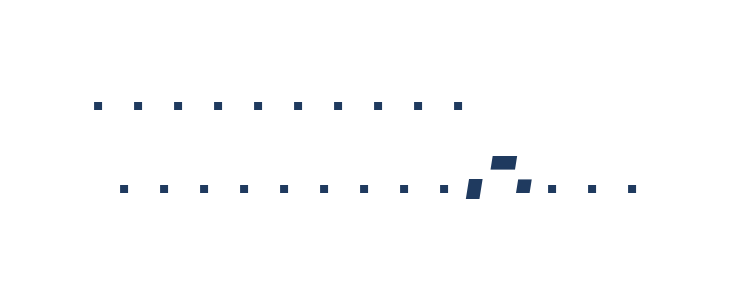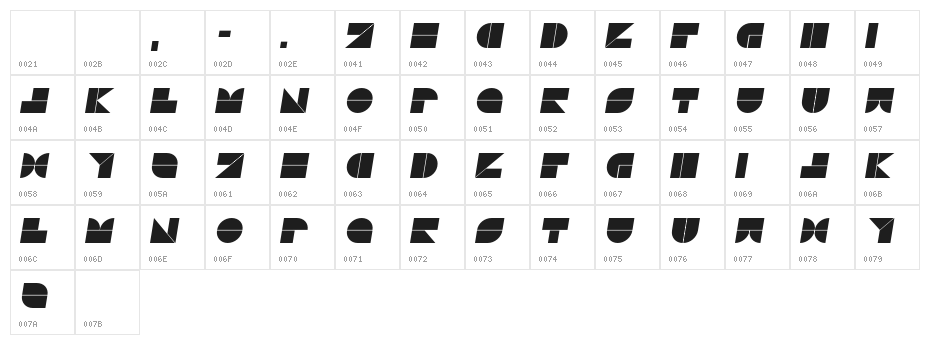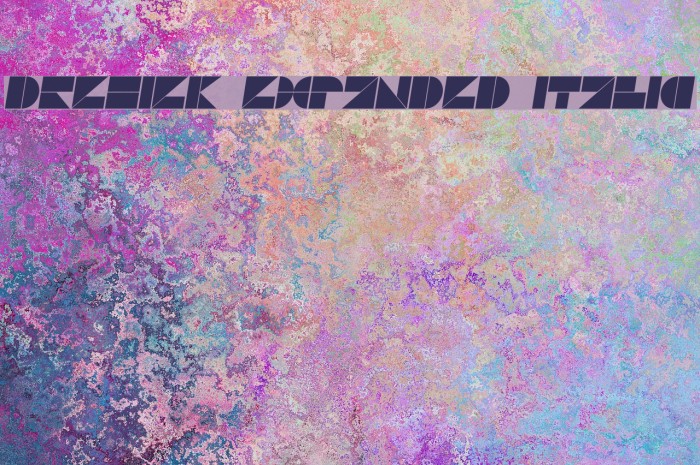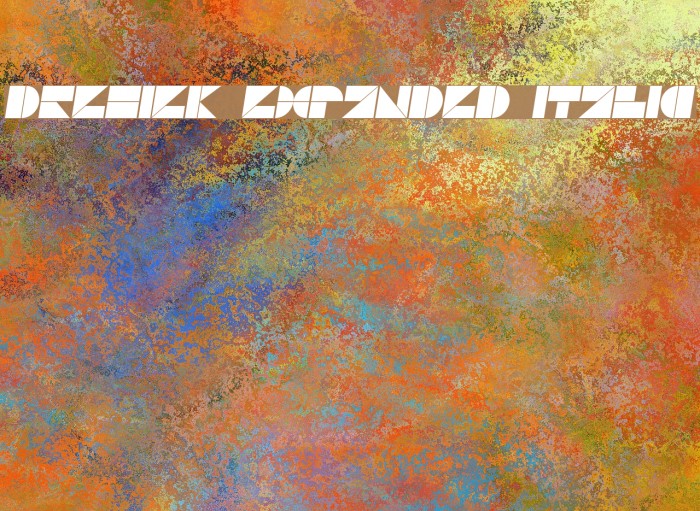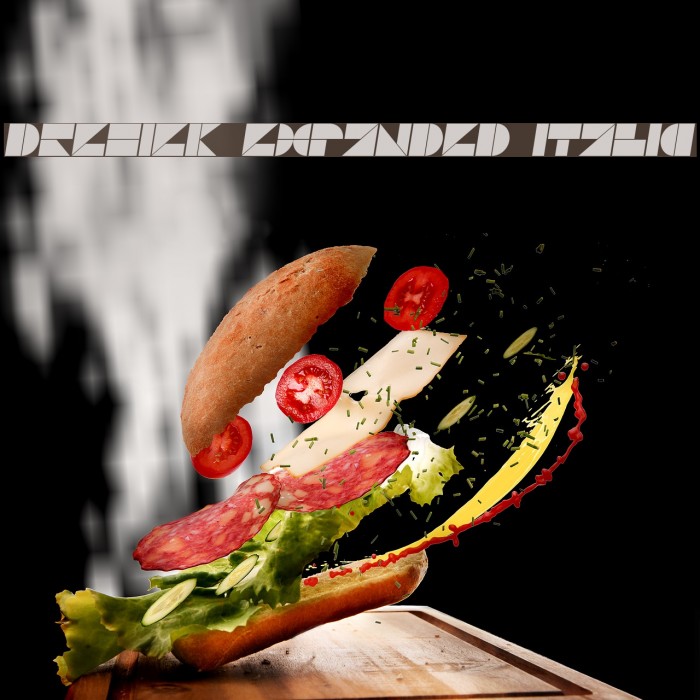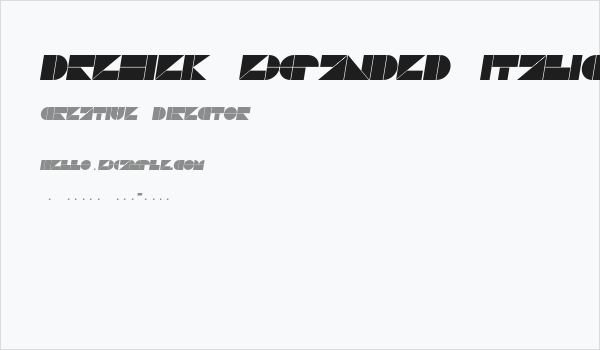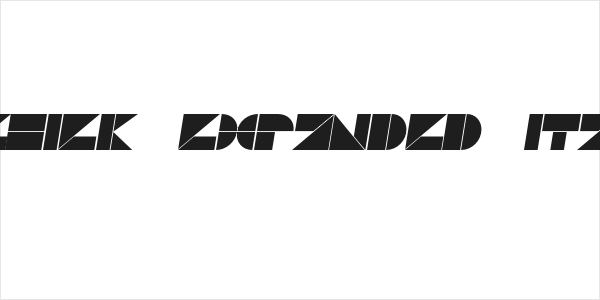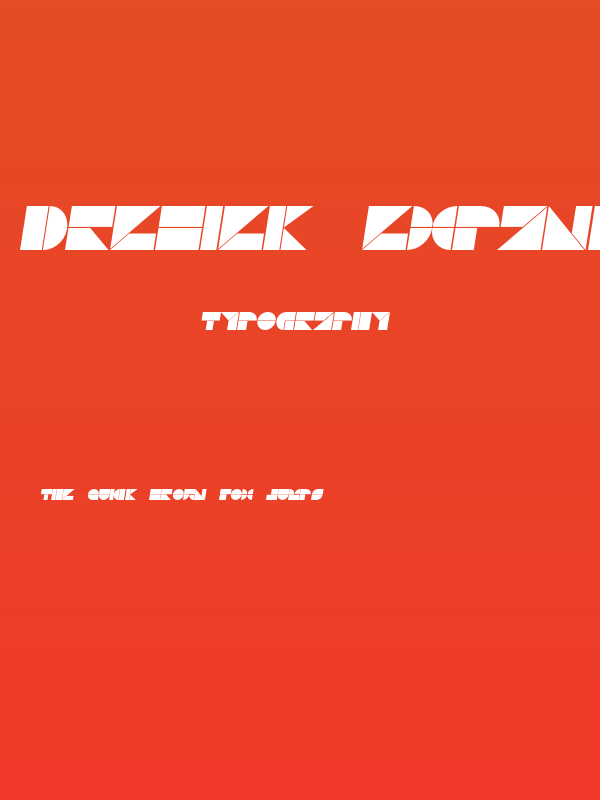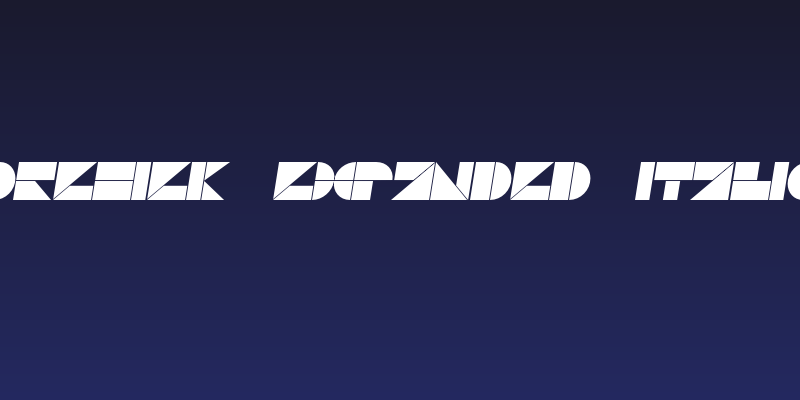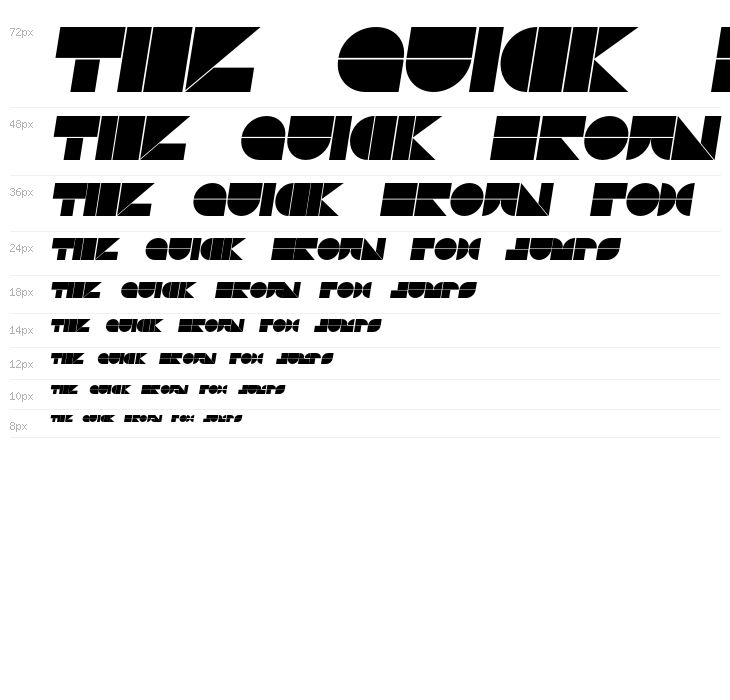
Drebiek Expanded Italic Font
Drebiek Expanded Italic Description
This font features a bold and geometric design with a distinctly modern and futuristic aesthetic. The characters are constructed from thick, angular shapes that create a sense of movement and dynamism. The expanded width of the letters gives them a commanding presence, making them ideal for attention-grabbing headlines or logos. The italic slant adds a touch of elegance and speed, enhancing the overall sleek appearance. The high contrast between the thick strokes and the negative space within each character further emphasizes the boldness of the design. This font is perfect for projects that require a strong visual impact and a contemporary feel.
| Proposed Projects | Ideal for branding, logos, headlines, posters, and any design that requires a strong, modern aesthetic. |